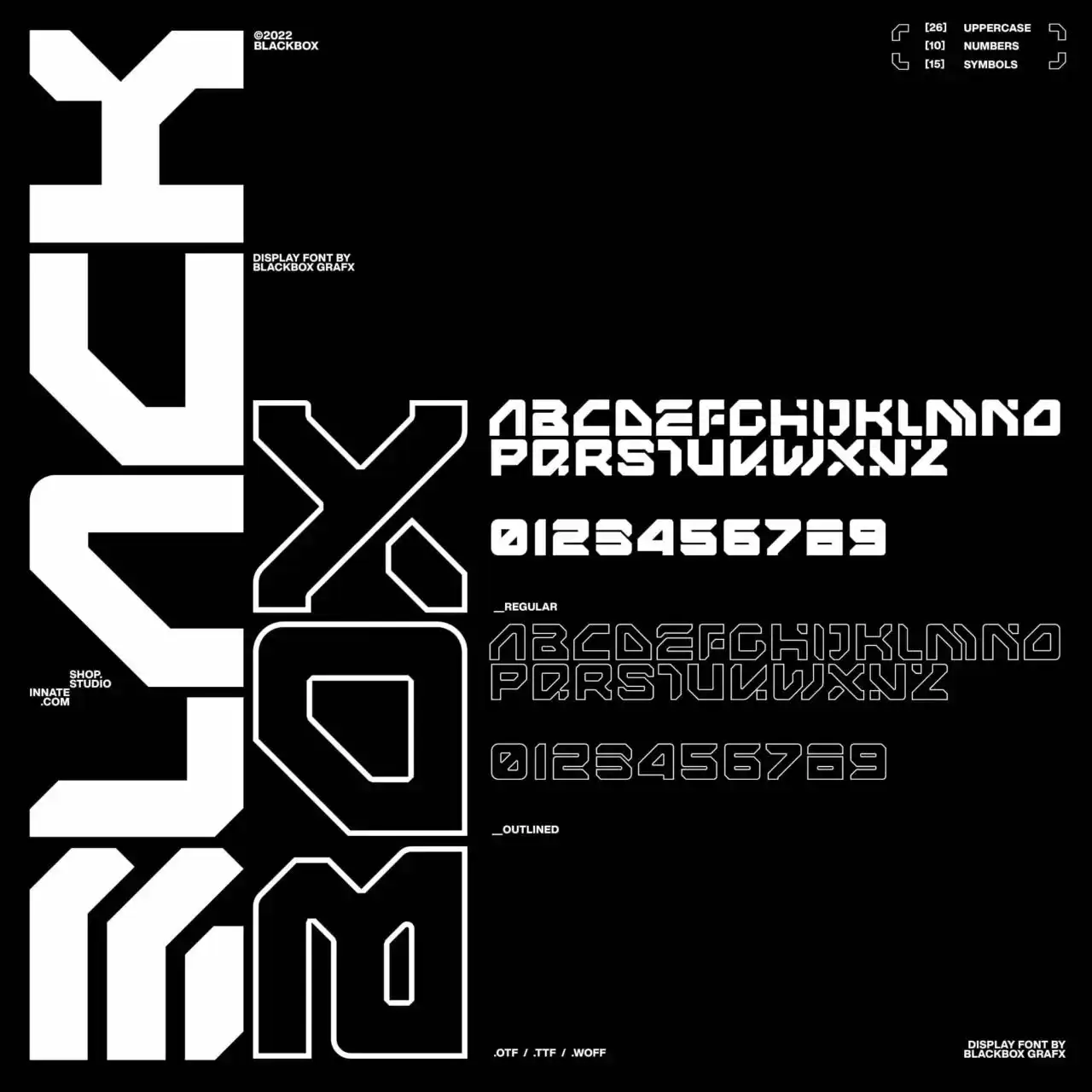
Chasm
Fall into the beauty of Chasm—a stunning display font family with five perfectly kerned weights from Thin to Black. Perfect for headlines that need that “wow” factor without trying too hard! 🌟
Blackbox
Enter the dystopian future with Blackbox—a gritty, cyberpunk-style font that radiates pure attitude. If your project needs to look dark, bold, and totally futuristic, this is your typeface! 🌌✨
ArcType®
Meet ArcType®—a futuristic font that bridges clean geometric lines with a serious cyberpunk vibe. It’s sharp, it’s sleek, and it will make your tech or gaming designs look next-level! 🤖🚀
Aztech
Blend ancient mysticism with street-ready style using Aztech! This unique font fuses Aztec symbols with a contemporary edge—perfect for logos, posters, or editorial work that demands character! ✨🔥
Adina
Meet your new best friend for retro-futurism: Adina! With soft rounded corners and gorgeous legibility, this font adds a touch of magic to any design. It’s playful, elegant, and oh-so-versatile! ✨🎠